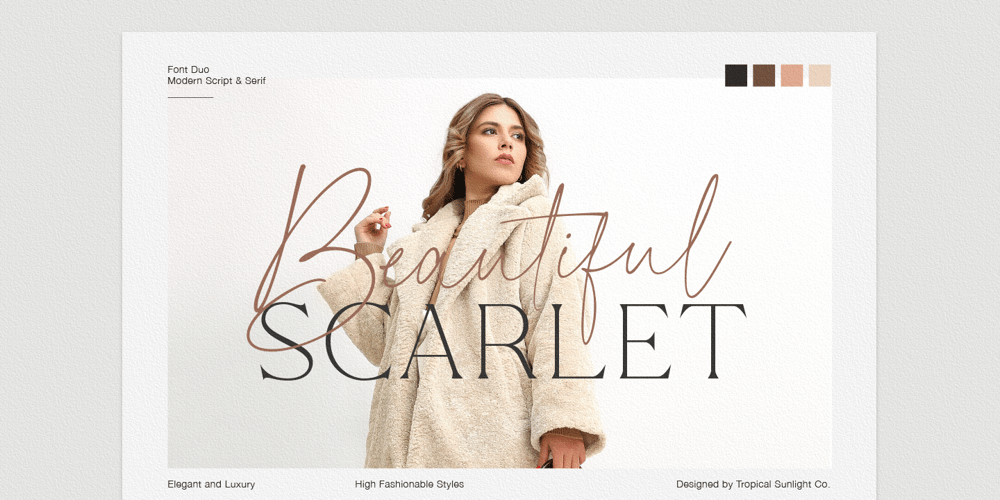
Beautiful Scarlet Font Family was designed by Faisal Tanjung, Edi Gunawan and published by Tropical Sunlight Co.. Beautiful Scarlet contains 2 styles and family package options. The font is called “Beautiful Scarlet”, it is font duo with fashionable themes. The font comes with two pairing typefaces (script and serif). Script font contains 2 set alternates and some ligatures. The Beautiful Scarlet matches apply in some designs such as the logotype, quotes, wedding invitation, business card, packaging, branding, and more custom design.Beautiful Scarlet includes :- Uppercase, lowercase, numeral, symbol and punctuation, alternates (ss01-ss02), ligature in script font- All-caps, numeral, symbol and punctuation in serif font- Multilingual- PUA Encoded- File format in .otfIf you have any questions, please contact : tropicalsunlight.co@gmail.com